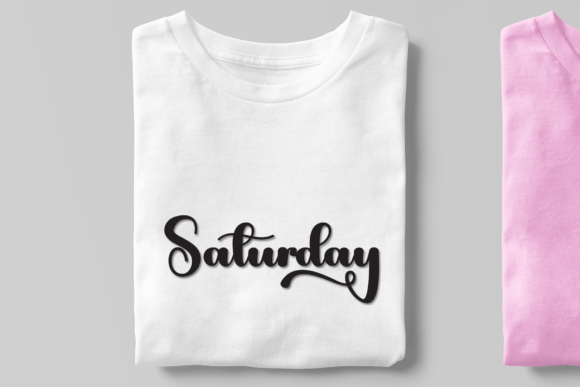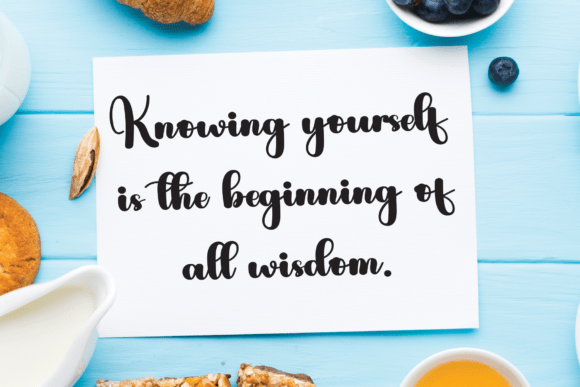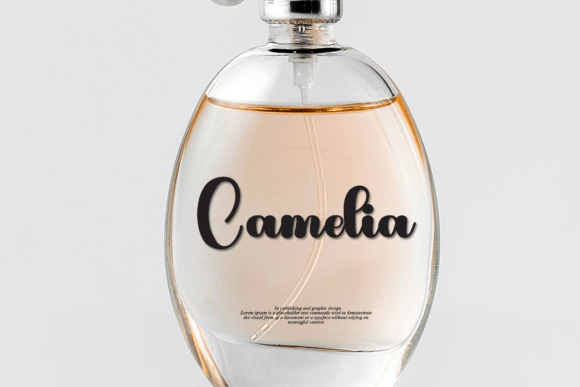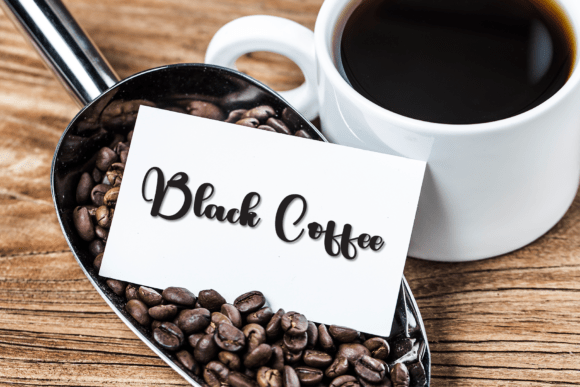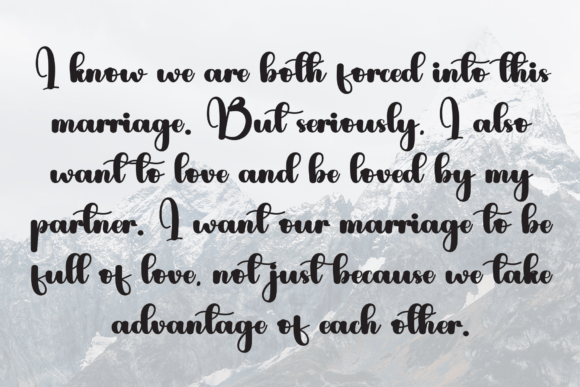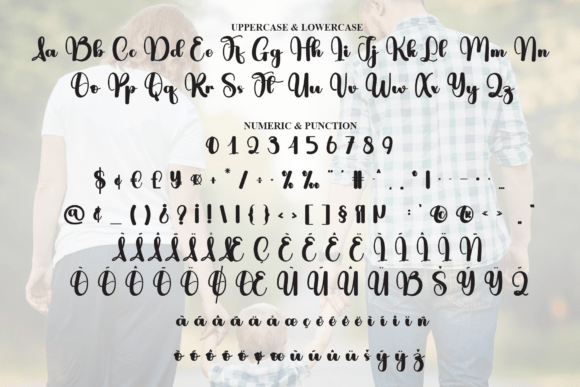
Introducing Family Font: The Perfect Handwritten Script for Your Designs
Are you looking for a font that can add a personal touch to your designs? Do you want to create something that feels cozy, inviting, and full of personality? Look no further than Family Font, a heartwarming handwritten script font that’s perfect for crafting family quotes, home decor prints, greeting cards, logos, and more.
The Characteristics of Family Font
Family Font is a unique blend of bold strokes and elegant swashes, creating a smooth and flowing script that’s easy to read and full of character. Its friendly flow and smooth curves make it perfect for designs that need a personal, affectionate touch. Whether you’re creating a family tree, a home decor print, or a greeting card, Family Font is the perfect choice.
What Makes Family Font So Special?
So, what sets Family Font apart from other fonts? Here are just a few things that make it so special:
- Handwritten with love: Family Font is a handwritten script font, which means it has a personal and intimate feel that’s hard to replicate with digital fonts.
- Bold strokes and elegant swashes: The combination of bold strokes and elegant swashes creates a unique and eye-catching look that’s perfect for designs that need a bit of flair.
- Smooth curves and friendly flow: The smooth curves and friendly flow of Family Font make it easy to read and fun to use.
- Perfect for family designs: As its name suggests, Family Font is perfect for designs that celebrate family, love, and connection.
Uses for Family Font
Family Font is a versatile font that can be used for a wide range of designs, including:
- Family quotes and sayings: Create beautiful and inspiring quotes that celebrate the love and connection of family.
- Home decor prints: Add a personal touch to your home decor with custom prints that feature your favorite family quotes or lyrics.
- Greeting cards: Create custom greeting cards for birthdays, holidays, and special occasions that feel personal and heartfelt.
- Logos and branding: Use Family Font to create a logo or brand identity that feels friendly, approachable, and inviting.
Why Designers and Crafters Love Family Font
Designers and crafters love Family Font for a variety of reasons, including:
- High-quality design: Family Font is designed with high-quality craftsmanship in mind, ensuring that your designs look professional and polished.
- Unique and eye-catching: Family Font is a unique and eye-catching font that adds a personal touch to any design.
- Perfect for DIY projects: Family Font is perfect for DIY projects, such as crafting, scrapbooking, and home decor.
Family Font is a heartwarming handwritten script font that’s perfect for designers and crafters who want to add a personal touch to their designs. With its smooth curves, friendly flow, and bold strokes, Family Font is the perfect choice for crafting family quotes, home decor prints, greeting cards, logos, and more. Whether you’re a professional designer or a DIY crafter, Family Font is a versatile and easy-to-use font that’s sure to become a favorite.